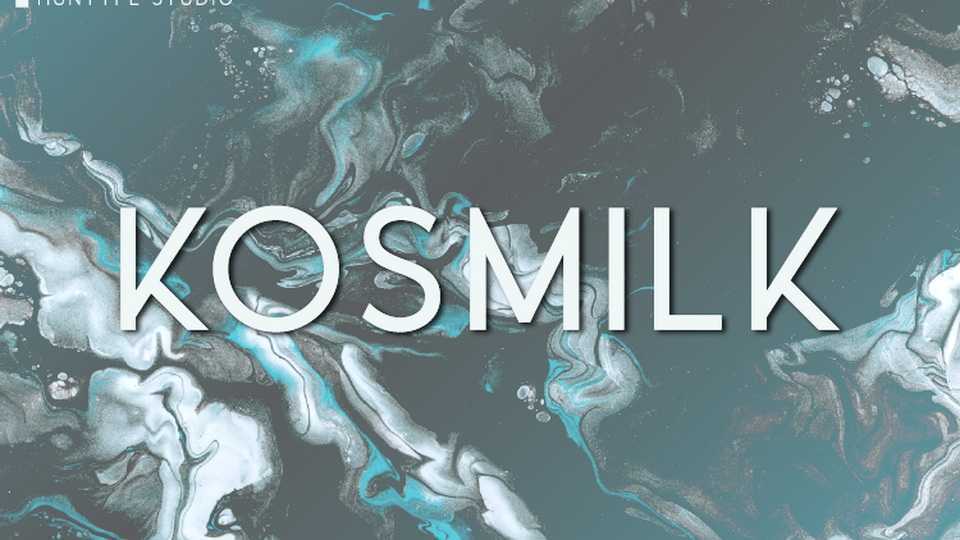
Download Kosmilk font, a simple geometric sans serif typeface. With smooth and clean lines, this font works beautifully for logos, branding, and web headings.
Designer: Mas Anis